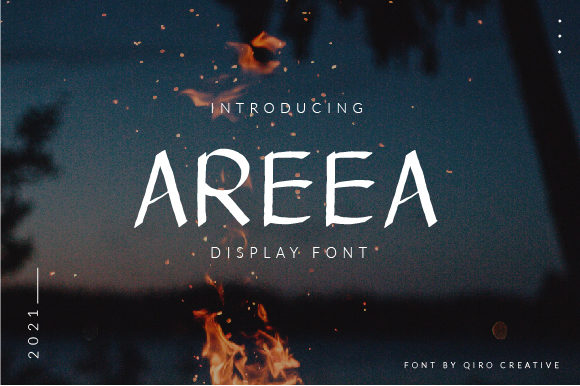
Unleash the artistic potential of your designs with Areea Font, a captivating display font crafted by HayCute. This typographic masterpiece exudes simplicity and neatness, making it incredibly versatile for a myriad of creative projects. Its amiable aura seamlessly blends with various design styles, ensuring a standout presence for your visual creations.
Adorn your designs with the elegance of Areea Font, a display font that effortlessly enhances the visual appeal of your projects. Its meticulously crafted letters, reminiscent of neatly lettered signage, evoke a sense of charm and uniqueness. Whether you're designing logos, posters, invitations, or website layouts, Areea Font will elevate your designs to new heights.
Step into the realm of creative possibilities with Areea Font, the ultimate font for making an impact on small displays. Its ability to capture attention even in limited spaces makes it an ideal choice for branding, social media graphics, and user interface design. Let your creations shine with the brilliance of Areea Font, leaving a lasting impression on your audience.